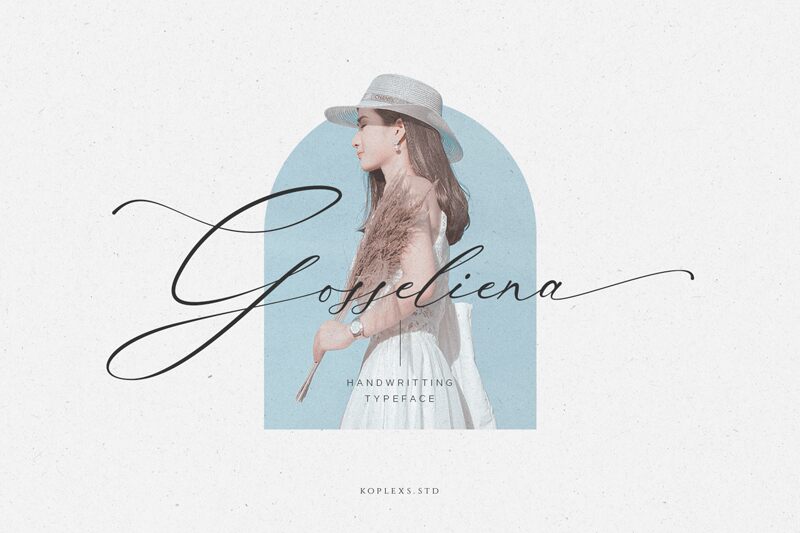
Gosseliena, a captivating calligraphy font by Koplexs Studio, exudes an air of elegance and grace. With its delicate strokes and extra-light weight, this font brings a touch of femininity to any project.
Whether it's wedding invitations, fashion magazines, or beauty blogs, Gosseliena adds a sophisticated charm that effortlessly captures attention. Its flowing curves and intricate details create a truly enchanting visual experience. Let your creativity soar as you explore the possibilities with Gosseliena - the perfect choice for those seeking to infuse their designs with a dash of feminine allure.